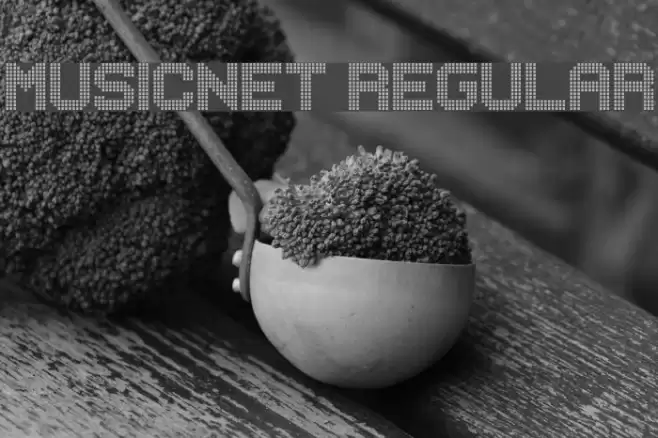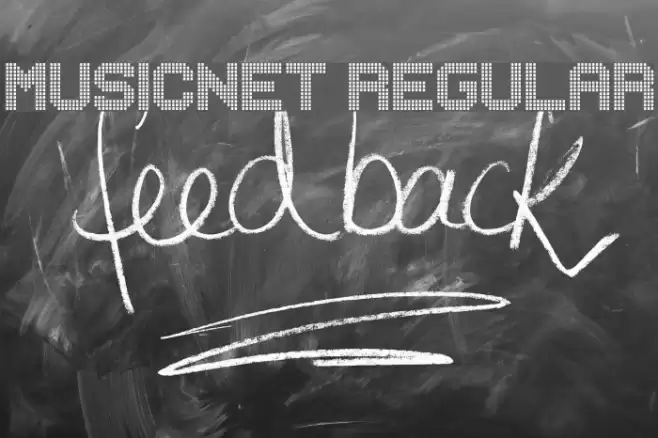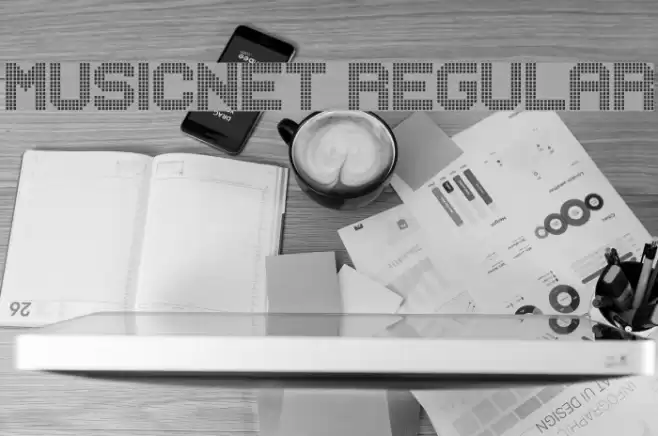
MUSICNET Regular Font
MUSICNET Regular Description
This font features a unique design composed of small, evenly spaced dots forming each character. The geometric arrangement gives it a digital, retro feel reminiscent of early LED displays or dot matrix printers. The uppercase letters are bold and structured, while the lowercase maintains the same dot pattern, ensuring consistency across the typeface. The numbers and special characters follow the same dot-based design, making it highly cohesive. This font stands out with its distinct pixelated style, making it ideal for projects that require a technological or vintage digital aesthetic.
A dot matrix-inspired font with a digital, retro aesthetic from Uncategorized fonts.
- Proposed Projects: Ideal for digital art, retro-themed designs, video game graphics, and tech-related branding.
- Overall Style: Retro, Digital
- Use Case: Logos, Posters, Digital Art